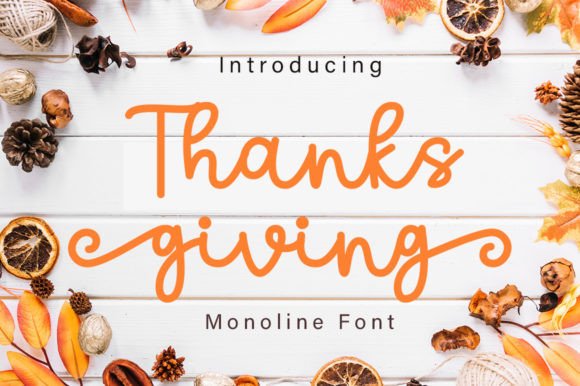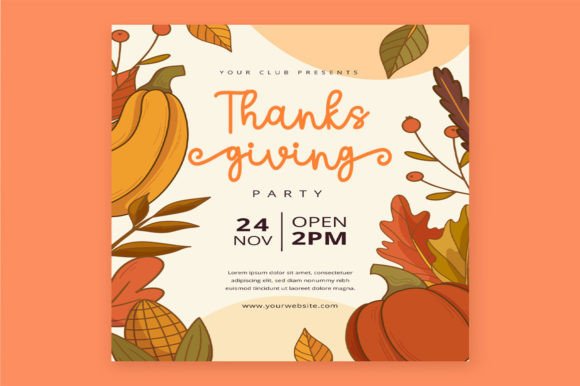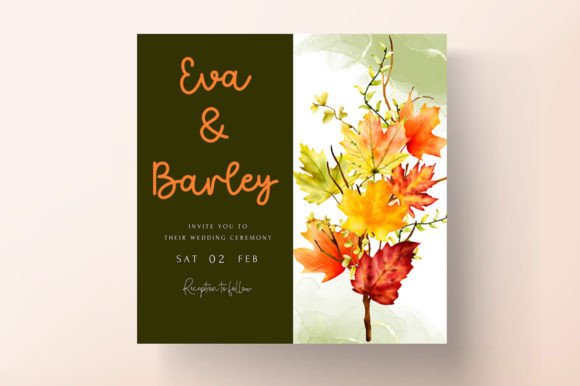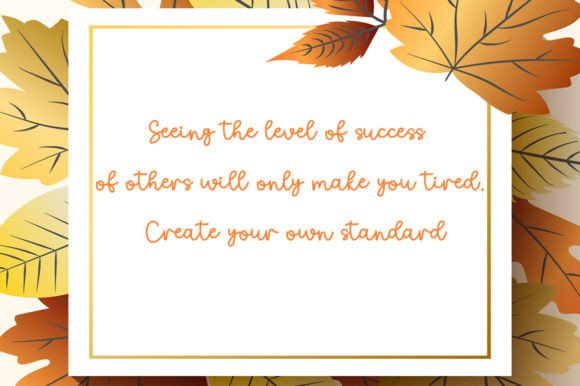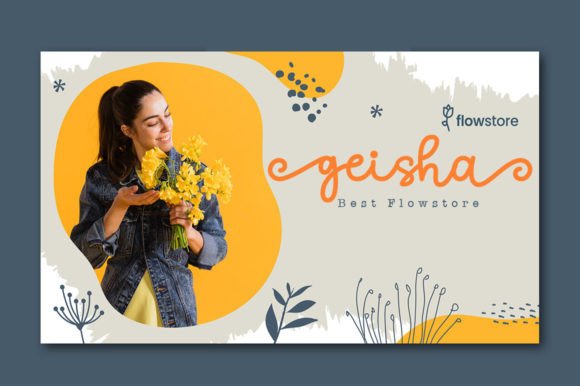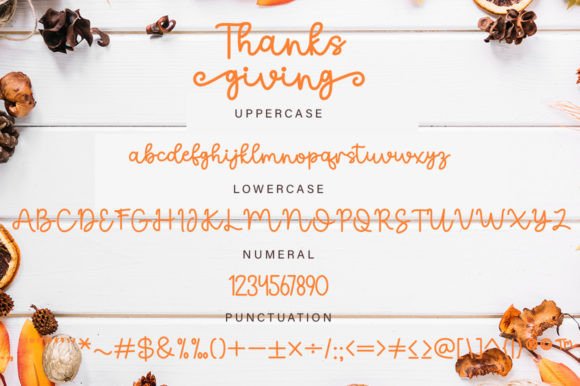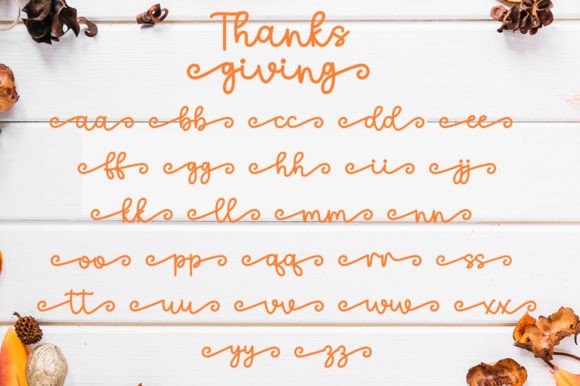
Thanks Giving Font
About Thanks Giving Font
Thanks Giving is an elegant script font. Not too thin and not too thick, balanced and varied, this font was designed to enhance the beauty of your projects. Thanks Giving is PUA encoded which means you can access all of the glyphs and swashes with ease!